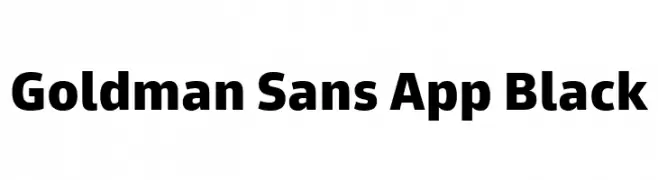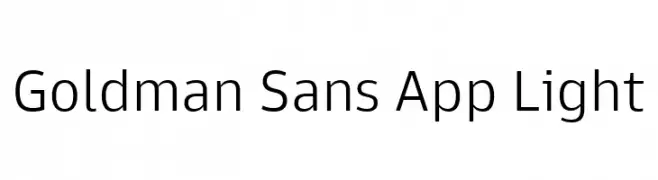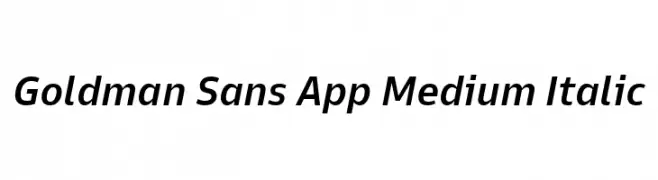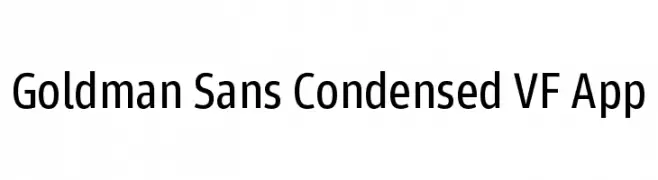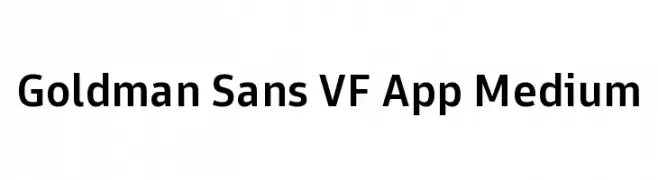
A clean, modern sans-serif font with uniform stroke width and balanced spacing.
A modern, condensed sans-serif typeface with clean lines and uniform proportions.
A modern, clean sans-serif typeface with balanced letterforms and excellent readability.
A modern, medium-weight sans-serif font with an italic slant.
A bold, modern sans-serif font with clean, geometric lines.
A modern, thin sans-serif font with low contrast and excellent readability.